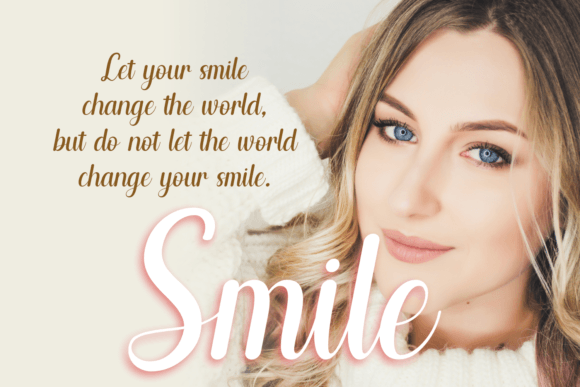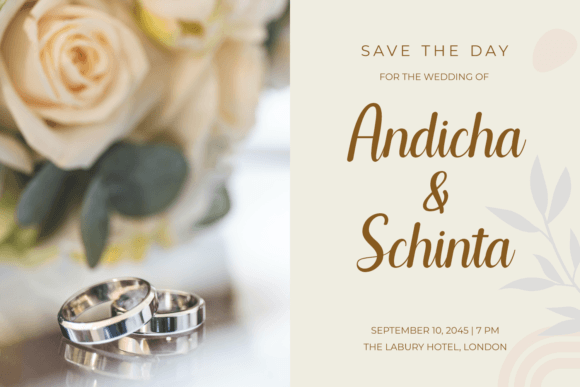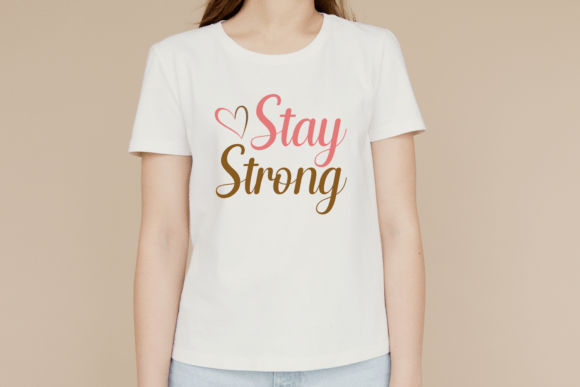
Unlock Your Creativity with Angelly Markle Font
Remember that moment when a design idea just clicks? You’re sitting in front of your computer, and suddenly, a beautiful concept takes shape. The right font can make all the difference. It’s the key to unlocking the essence of your design and bringing it to life. For designers, finding the perfect font can be a challenge, but with the right tool, the possibilities are endless.
Enter Angelly Markle Font, a stunning script font that exudes elegance and sophistication. This gorgeous font is designed to help you create authentic-looking typography that speaks volumes. With Angelly Markle Font, you can add a touch of luxury to your designs, making them stand out in a crowded market. Whether you’re a professional designer or a creative enthusiast, this font is a valuable addition to your library.
Angelly Markle Font Key Features
- Font Family: Angelly Markle
- Unique Characteristics: Angelly Markle features a unique blend of elegance and sophistication, with intricate details and ornate flourishes.
- Language Support: Supports multiple languages, including Latin, Cyrillic, and Greek scripts
Angelly Markle Font Review
When I first laid eyes on the Angelly Markle Font, I was immediately drawn in by its elegant and sophisticated appearance ✨. The font’s unique blend of modern and classic elements creates a truly distinctive look that is sure to turn heads. The subtle flair at the end of each letter adds a touch of whimsy, making it perfect for projects that require a bit of personality.
One of the standout features of the Angelly Markle Font is its versatility. It can be used for a wide range of applications, from fashion and beauty to lifestyle and wellness ✨. The font is also highly customizable, allowing designers to adjust the size, color, and spacing to suit their specific needs.
- ⚠️ The font’s unique flair may not be to every designer’s taste
Overall, I’m impressed with the Angelly Markle Font’s unique design and versatility ✨. While it may have some limitations, I believe it’s a great choice for designers looking to add a touch of sophistication and personality to their projects.
Tips for Getting the Most Out of Angelly Markle Font
Use the font in combination with other design elements to create a cohesive look.
Consider using the font for headings and titles to add emphasis and hierarchy.
The Angelly Markle font is suitable for a variety of designs, including:
– Invitations and event materials
– Digital and print publications
– Social media graphics and ads